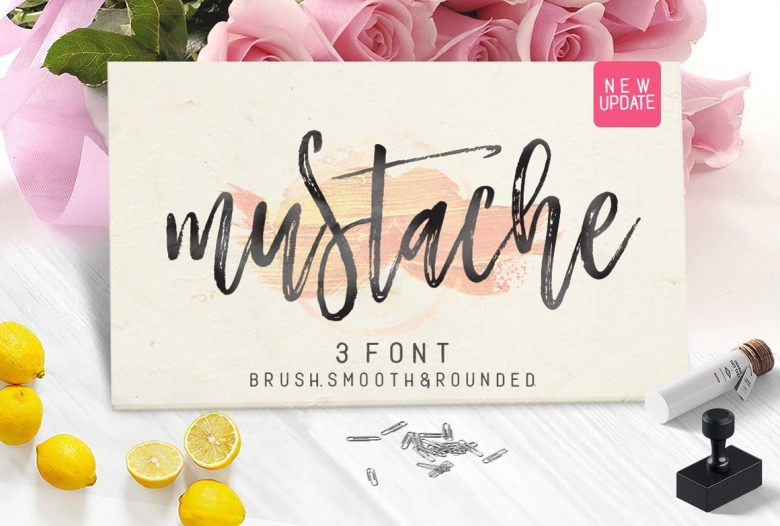
Mustache Script Font
Mustache Script smooth features 340 glyphs and has given PUA unicode (specially coded fonts), with tons of alternate characters. The pack can be accessed in full by any crafter or designer, without the requirement for extra design software, COMPATIBLE WITH SILHOUETTE & CRICUT DESIGN SPACE